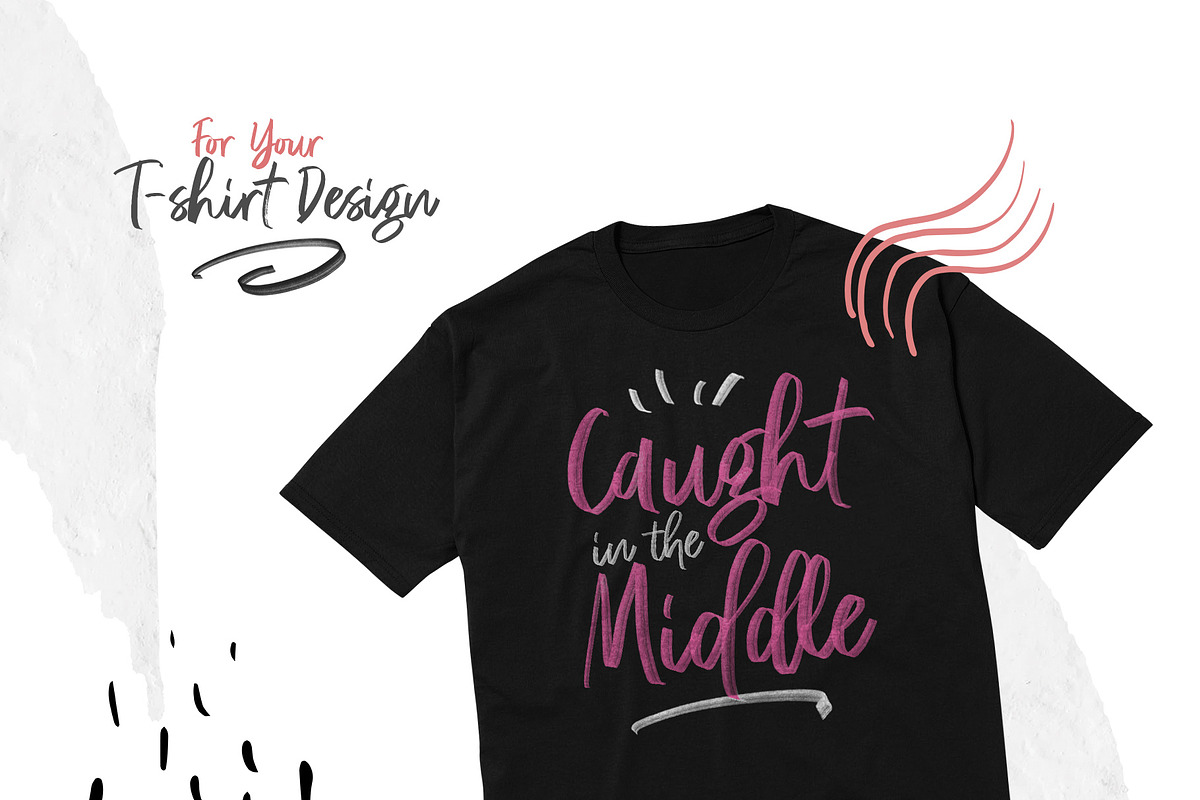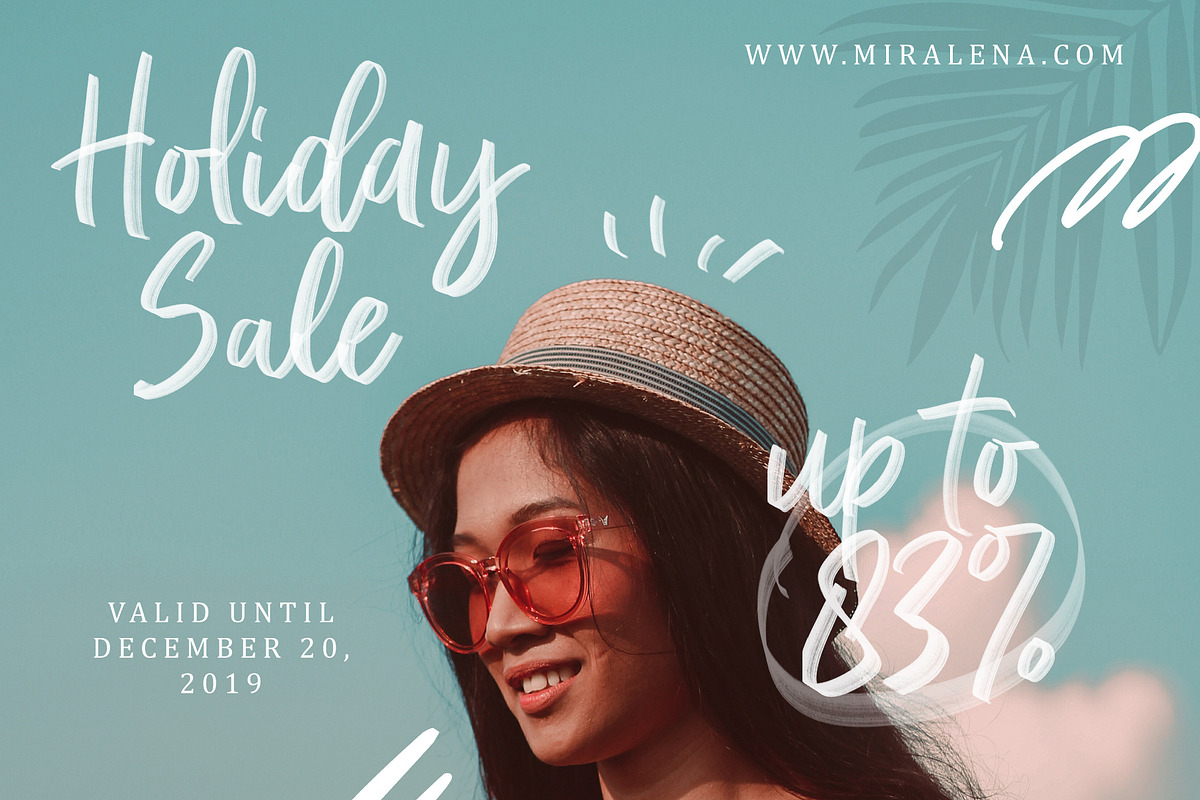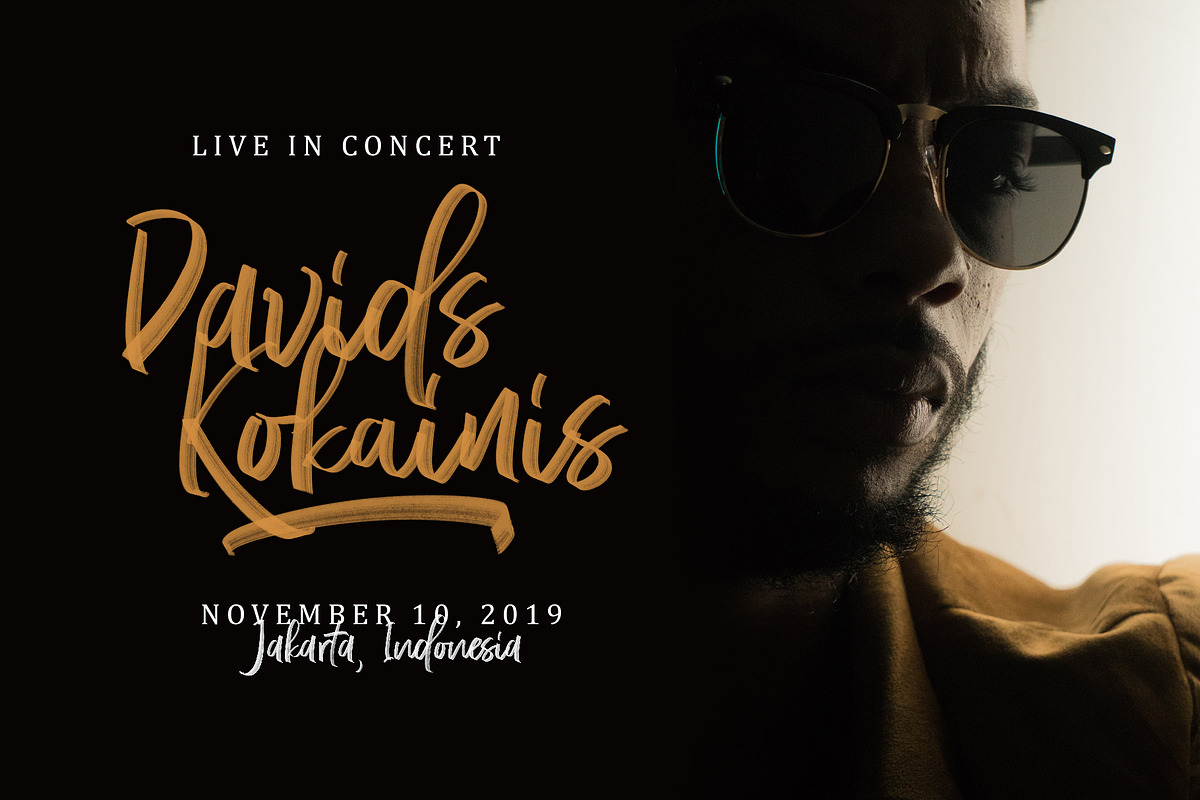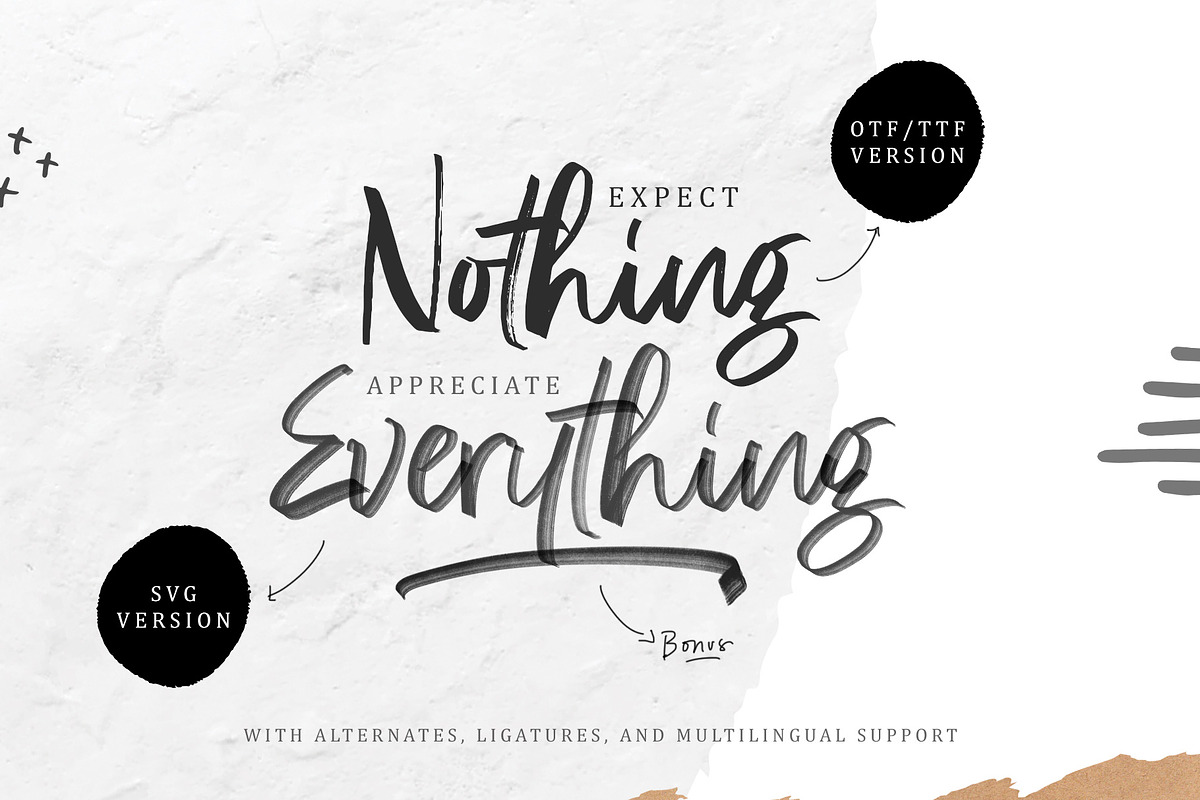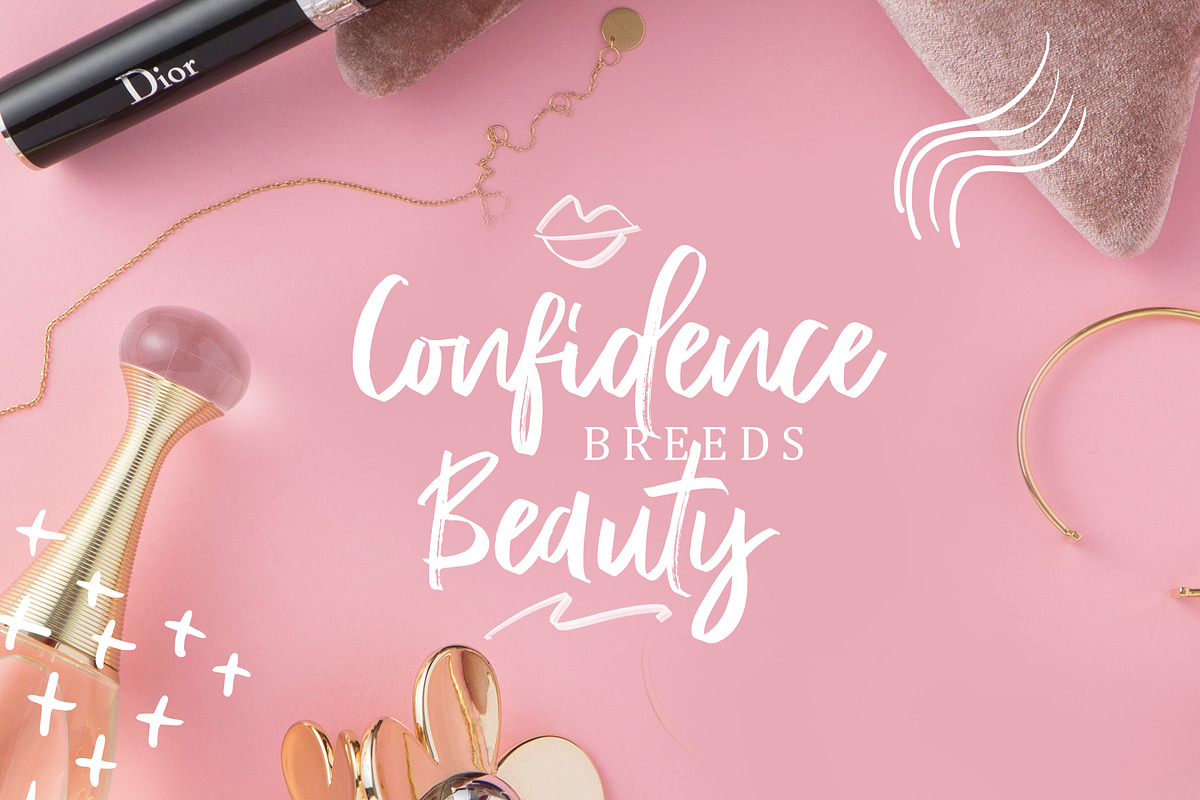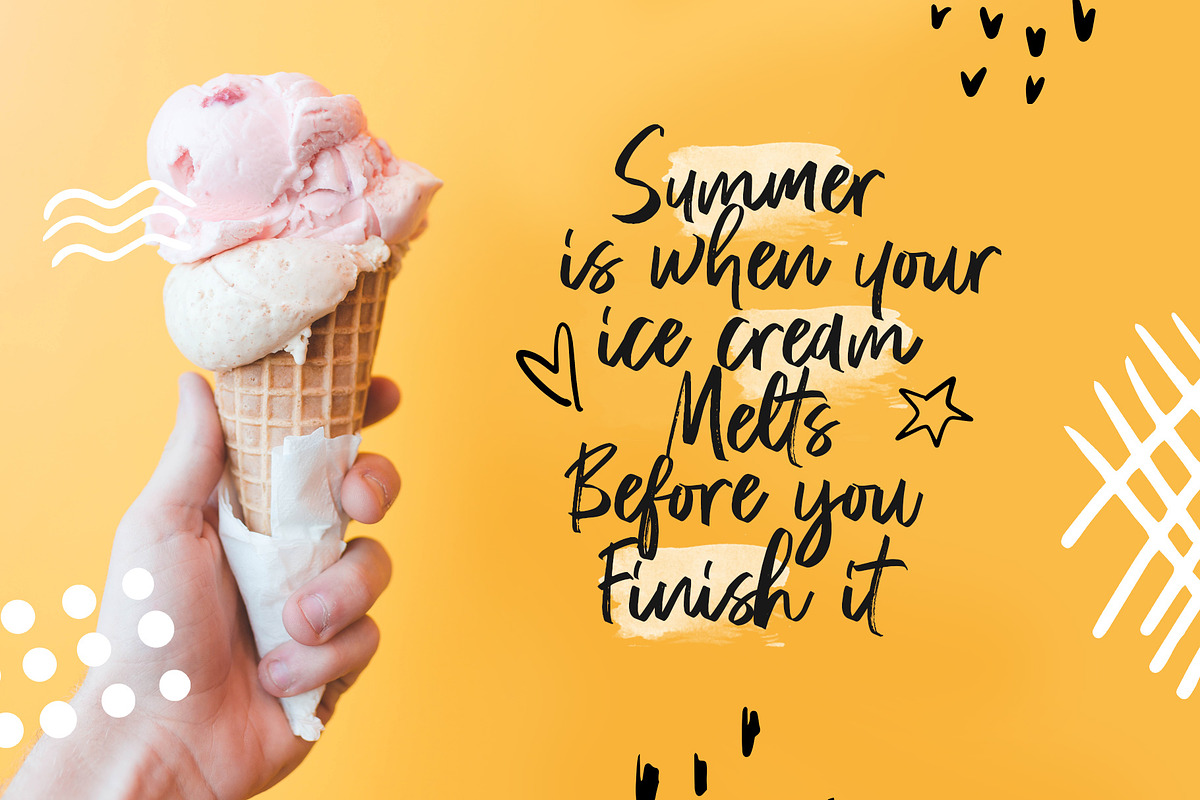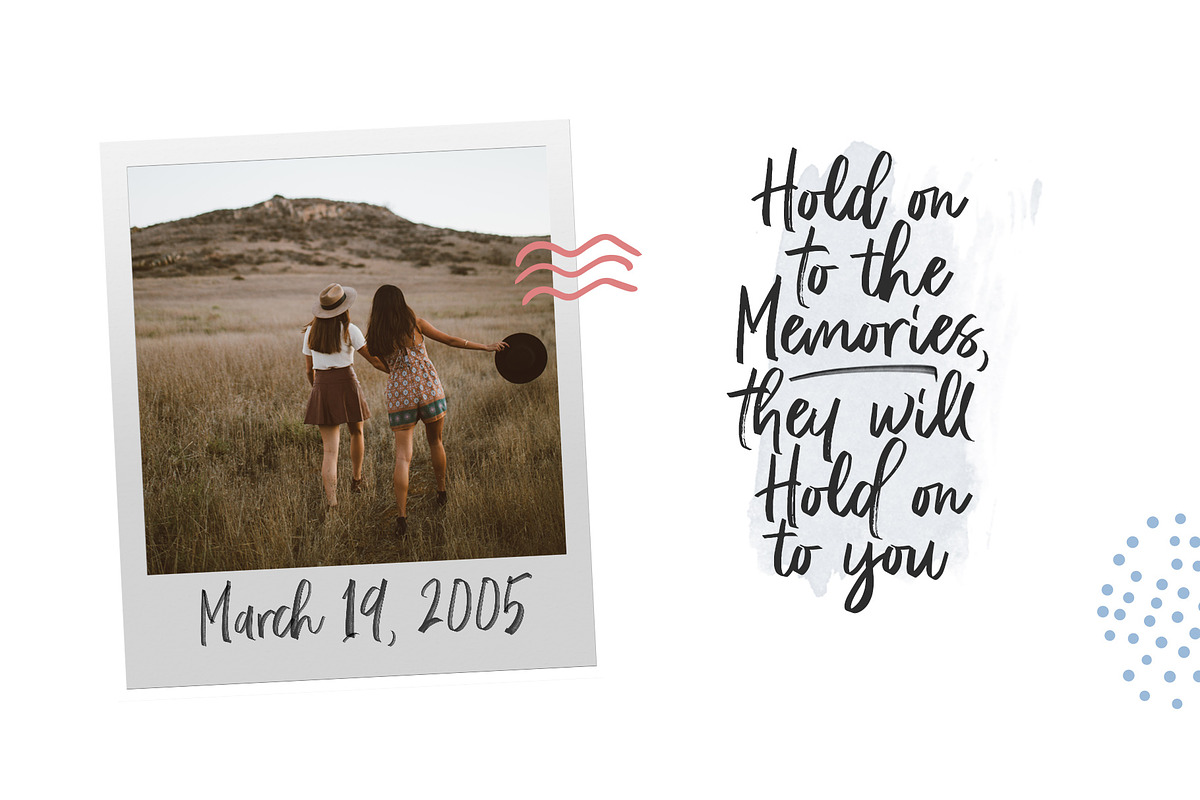
Rossie Kelly - SVG Font
Introducing, My second SVG font, Rossie Kelly!
Rossie Kelly is handmade font that contains the newest font format, SVG and two another format. You can use these fonts for various purposes such as making realistic handwriting, for promotions, or other purposes that will make your design more real as handmade. This font also contain alternates to each characters, along with ligatures.
This font made with bitmap format with high resolution, but don't worry, you still can change the color of the font by using layer style in photoshop.
Rossie Kelly SVG, with alternates, ligatures, number & punctutations